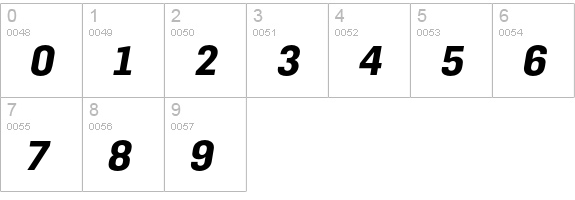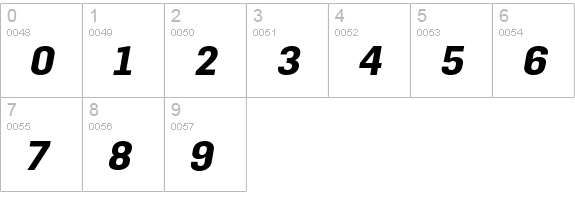
Flama Bold Italic is a strong, high-contrast, italic variant in the Flama typeface family \xE2\x80\x94 well suited to headlines, attention-grabbing titles, and strong calls-to-action.
Flama Bold Italic font exudes a sense of bold sophistication with its striking design and sleek italics. This modern typeface is perfect for making a statement in your designs, whether for branding, headlines, or editorial projects. The bold weight adds a strong presence, while the italic style adds a touch of elegance and flair. The Flama Bold Italic font is not only visually appealing but also versatile, making it suitable for a wide range of design applications. Its clean lines and distinctive letterforms give it a unique personality that stands out from the crowd. Best of all, Flama Bold Italic font is available for free download at FontsMarket.com. This means you can easily access this high-quality typeface without any cost, making it a valuable addition to your font library. Don't miss out on the opportunity to elevate your designs with the dynamic and expressive Flama Bold Italic font!